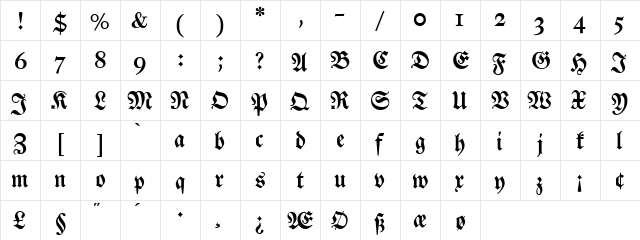
DS Luthersche Halbfett Regular
| Foundry | Typographer Mediengestaltung |
| Designer | Typographer Mediengestaltung |
Design Context for DS Luthersche Halbfett Typeface
DS Luthersche Halbfett takes a measured approach to typography — its balanced proportions and neutral character make it a reliable workhorse for both digital and print work.